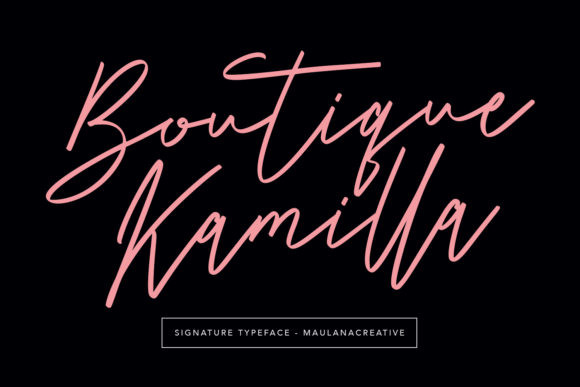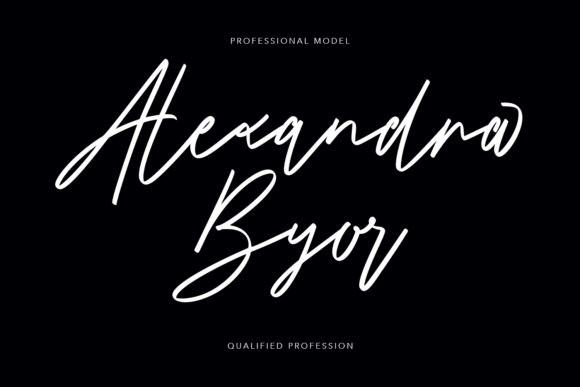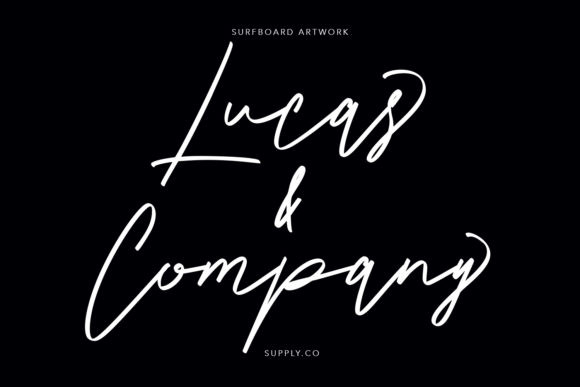
Boutique Kamilla Font
Boutique Kamilla FontBoutique Kamilla is a simple and unique handwritten font. It has a clean, thin and smooth vibe and it will be a hit for any design that you want to add it to.